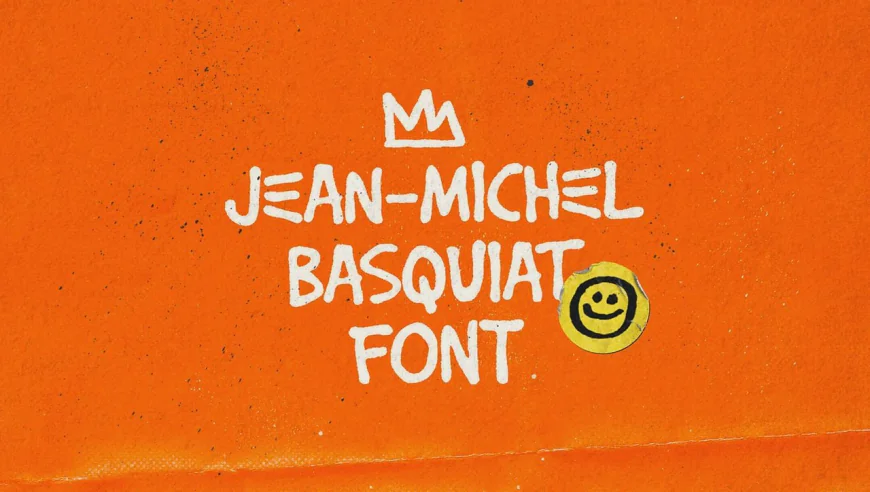
A font inspired by Jean-Michel Basquiat’s artwork, capturing the essence of his handwritten letters and notebooks.
It showcases hand-drawn lettering with raw edges and natural strokes, crafted with care.